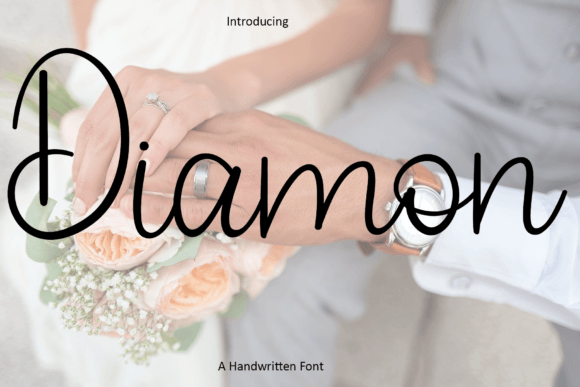
Introduction to Diamon Font
Diamon is a stylish handwritten font with a contemporary atmosphere and impeccable form.
Balanced and varied, this font was designed to enhance the beauty of your projects .
Key Features of Diamon Font
Why Choose Diamon Font?
Diamon Font offers exceptional quality and versatility, making it a valuable addition to your design toolkit. Whether you’re creating for personal projects or commercial use, Diamon Font delivers professional results.